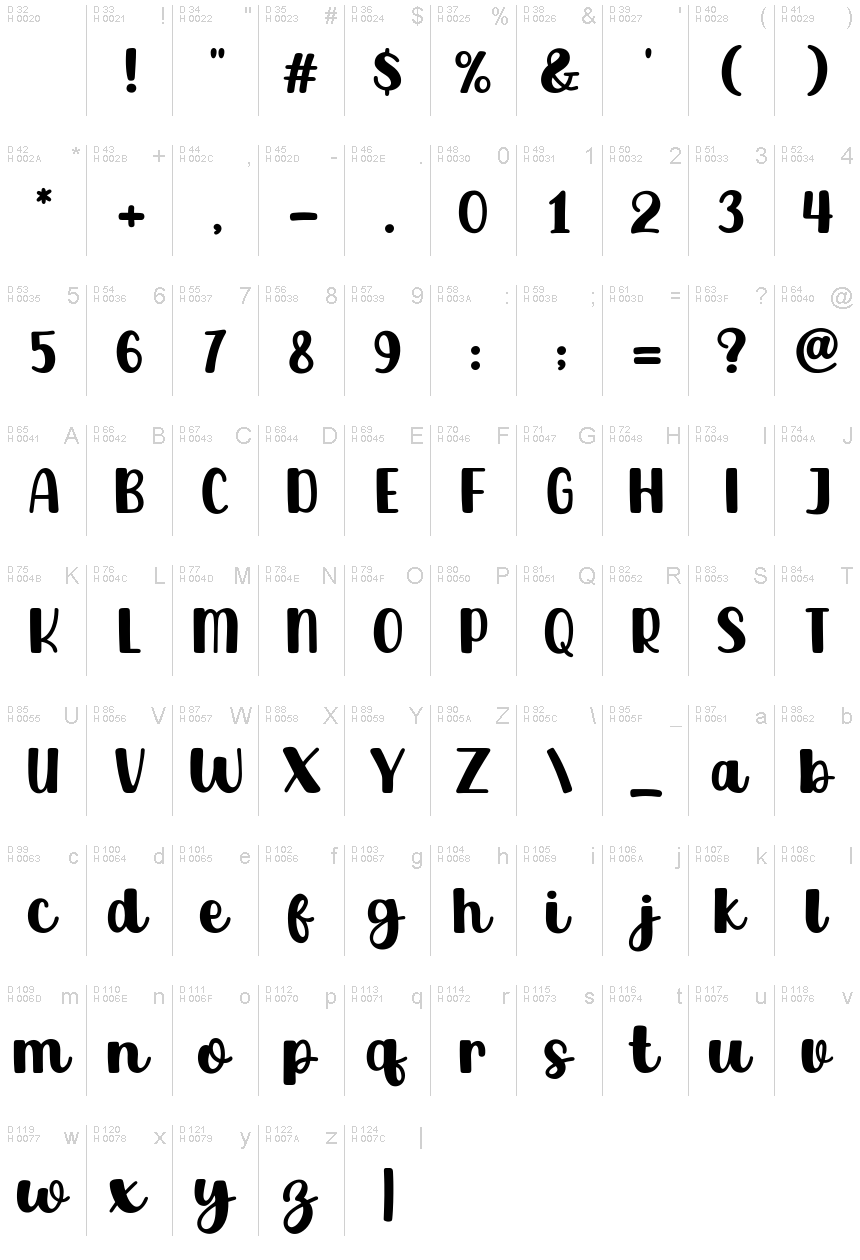
Quick Peach
Quick Peach, designed by Khurasan, is a font that captures the essence of spontaneity and elegance with its smooth brush style. Its bold weight ensures that it stands out, making a confident statement in any creative endeavor. The fluidity of Quick Peach's characters suggests a handcrafted touch, imbuing designs with a personal and approachable feel.
This font's aesthetic appeal lies in its dynamic balance; the boldness conveys strength while the brush effect maintains an organic softness. Quick Peach has the versatility to shine in various projects—from branding and advertising to social media graphics and editorial design. Its unique blend of casual charm and robust presence makes it well-suited for those seeking to inject warmth and character into their work.